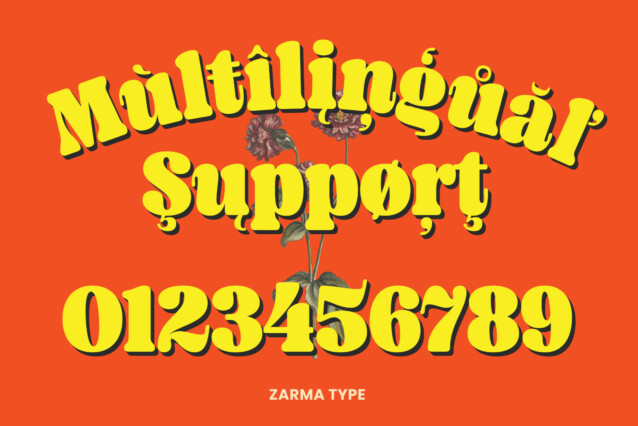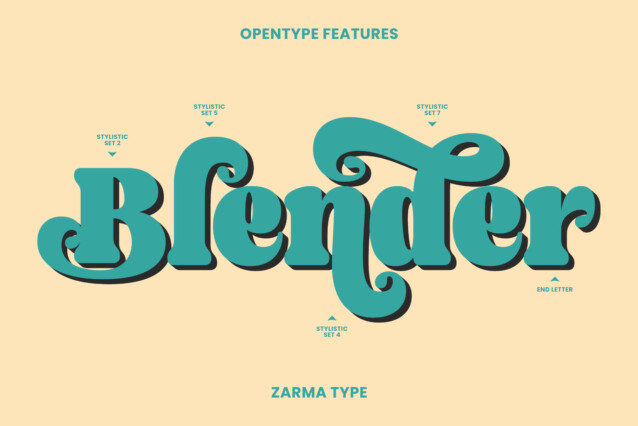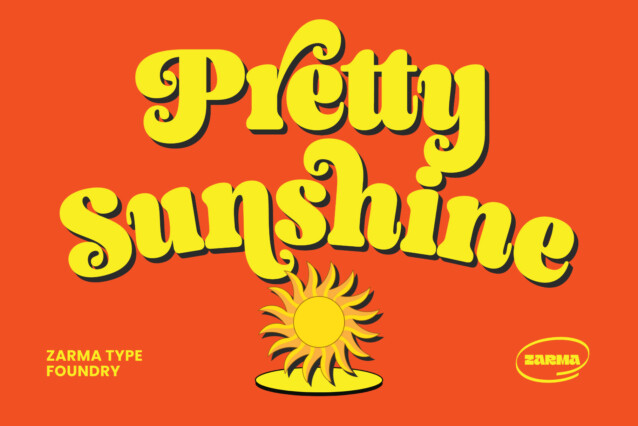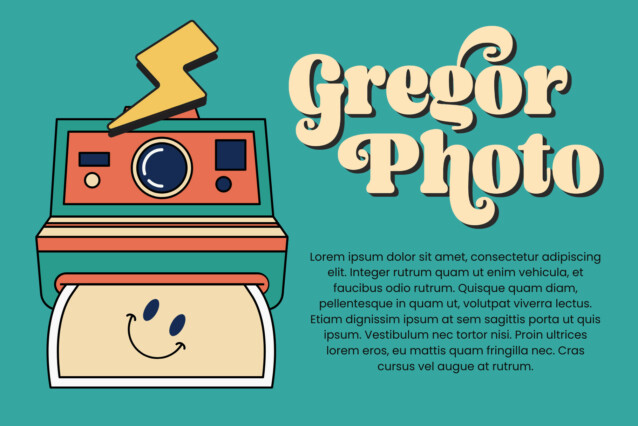
Malrin Typeface
Malrin Typeface is achunky retro font inspired by the great “fatface typeface”. The concept came from a groovy, funky and little bit of psychedelic looks. Malrin has 180+ alternative character set and some ligatures. This font perfectly made to be applied especially in logo, and the other various formal forms such as display, header, headline, poster, logos, or etc on a big typography.